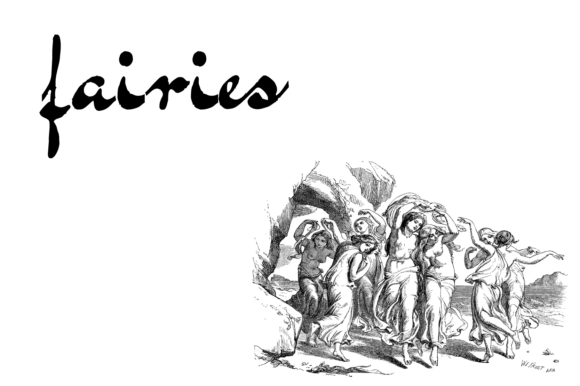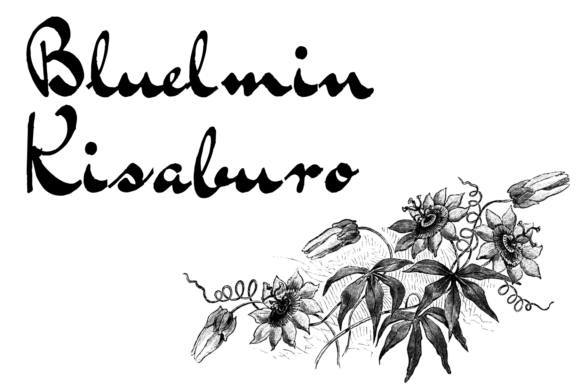
The Timeless Charm of Handwritten Typography
Do you remember the thrill of receiving a handwritten letter from a loved one? The way the words seemed to dance across the page, infused with the personal touch of the writer’s hand? For many of us, the joy of handwritten communication is a lost art, replaced by the efficiency of digital messages. But what if we could recapture some of that magic in our digital designs?
Enter the Bluelmin Kisaburo Font, a classical handwriting font that brings a touch of elegance and whimsy to any project. This beautiful font is perfect for designers looking to add a personal touch to their work, whether it’s a wedding invitation, a children’s book, or a branding campaign. With its unique, hand-drawn feel, the Bluelmin Kisaburo Font is a valuable addition to any designer’s toolkit.
Bluelmin Kisaburo Font Key Features
- Font Family: Bluelmin Kisaburo is a Japanese font family designed for use in various digital applications.
- Unique Characteristics: Bluelmin Kisaburo features a unique blend of traditional Japanese and modern design elements, making it suitable for a wide range of applications, from advertising to editorial content.
Bluelmin Kisaburo Font Review
First of all, let’s start with the positives. I really like the ✨ unique and quirky vibe of this font. It’s perfect for anyone who wants to add a bit of personality to their designs without going over the top. The bold lines and geometric shapes work really well together to create a visually appealing effect.
The font also ✨ supports a wide range of languages, making it a great option for global brands or websites. Additionally, the font is ✨ highly customizable, allowing you to tweak the weight, width, and even the letter spacing to get the perfect look.
One of the main limitations of the Bluelmin Kisaburo Font is the ✠ limited availability of italic and bold-italic styles. While this may not be a deal-breaker for some designers, it can be a problem if you need to emphasize certain text in a particular way.
Another limitation is the ✠ lack of support for certain special characters and symbols. This may require some additional work to get the font to display correctly in all situations.
In general, I think the Bluelmin Kisaburo Font is a great option for designers who want to add some visual interest to their work. While it may not be perfect, its unique style and high level of customization make it a great choice for anyone looking to stand out from the crowd.
- Unique and quirky design
- Supports a wide range of languages
- Limited availability of italic and bold-italic styles
- Lack of support for certain special characters and symbols
Practical Application Guide for Bluelmin Kisaburo Font
Tips for Getting the Most Out of Bluelmin Kisaburo Font
For best results, use Bluelmin Kisaburo Font for designs that require a unique, handwritten feel. Avoid using it for formal or professional documents. Experiment with different font sizes and styles to create a visually appealing design.
Bluelmin Kisaburo Font is ideal for:
- Social media posts and graphics
- Event invitations and promotional materials
- Handmade or craft-based designs